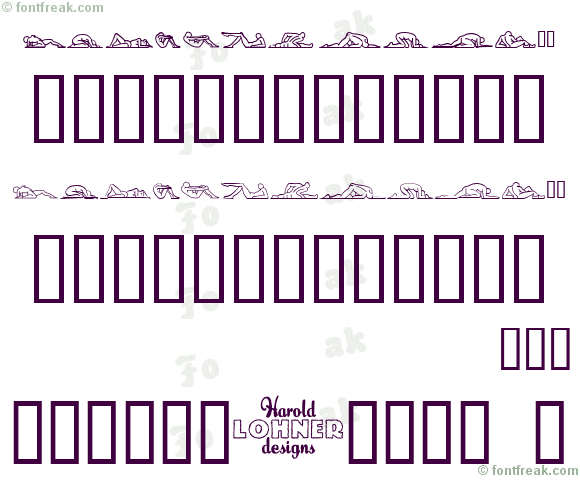
Candide Dingbats
About Candide Dingbats
Candide Dingbats, designed by Harold Lohner in 1999, is a unique decorative font that falls under the category of dingbats. This font showcases a distinct visual style characterized by a series of playful and artistic symbols. The design is inspired by the decorations of the renowned illustrator Rockwell Kent, created around 1928, and represents a blend of creativity and whimsy. The stroke weight in Candide Dingbats is consistent, providing a harmonious look that makes it suitable for various applications. The spacing between the symbols is well-balanced, allowing for easy readability while maintaining an artistic flair.
This font is particularly well-suited for several specific use cases. Designers can effectively use Candide Dingbats for wedding invitations, where the charming symbols can enhance the overall aesthetic and add a personal touch. It is also a great choice for movie posters, especially those in the indie film genre, where unique visual elements can capture attention. Restaurant menus can benefit from this font by incorporating decorative icons that reflect the theme of the dining experience. Additionally, content creators looking to add a whimsical touch to social media graphics will find this font to be a valuable asset.
Target audiences for Candide Dingbats include graphic designers, small business owners, and content creators who seek to elevate their projects with distinctive visual elements. The versatility of this font allows it to adapt to various themes while still standing out in a crowded design landscape. With its creative roots and charming symbols, the Candide Dingbats font free download is an excellent choice for those looking to infuse their work with personality and character. Its playful nature and artistic inspiration make it a standout option for any creative endeavor.